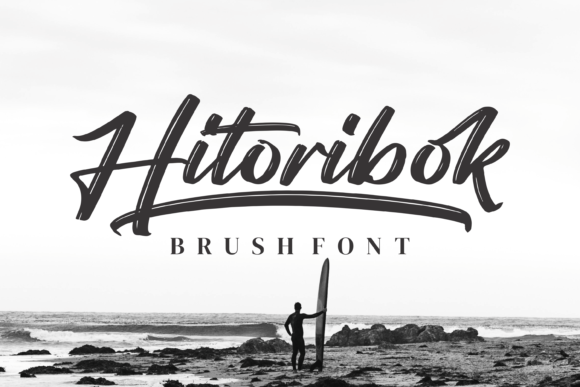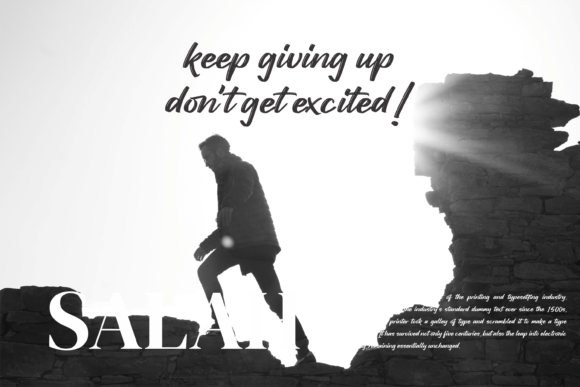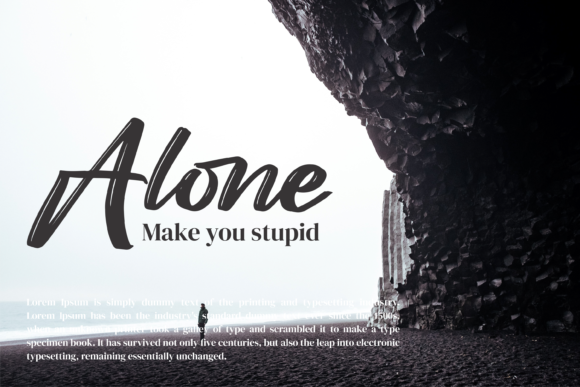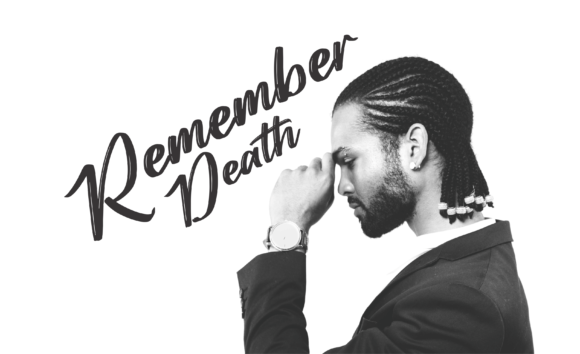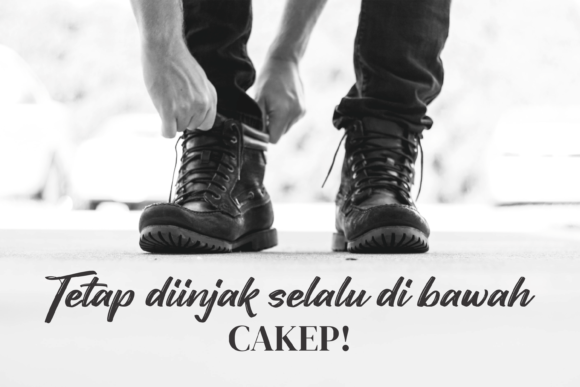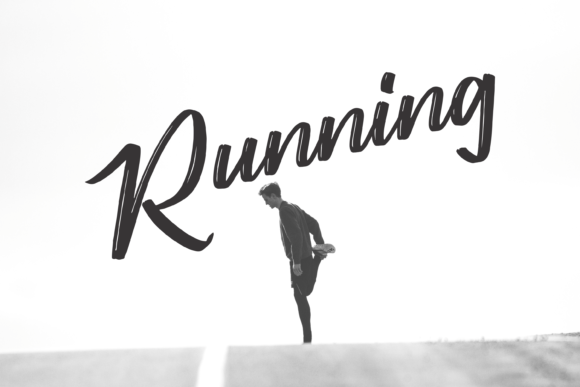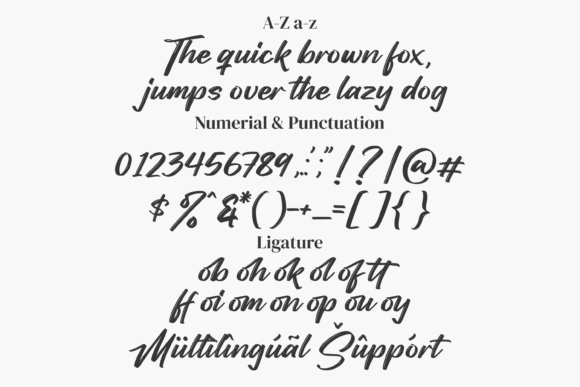
Have you ever been browsing through a fashion magazine and been captivated by the elegant script used in their headlines? You know, the kind that makes you want to grab a cup of coffee, sit back, and appreciate the beauty of the typography? That’s exactly the feeling you can evoke with the Hitoribok Font.
Hitoribok Font is a stunning, vintage-styled script font that’s perfect for fashion branding or editorial designs. Its smooth curves and well-balanced design make it a valuable addition to any designer’s toolkit. Whether you’re working on a high-end fashion campaign or a stylish blog, Hitoribok Font is sure to add a touch of sophistication and elegance to your project.
Hitoribok Font Key Features
- Unique Character Set: Hitoribok Font features a unique character set that includes a wide range of Japanese characters, making it an ideal choice for designers and typographers working on Japanese-language projects.
- Variable Font Technology: Hitoribok Font is a variable font, allowing users to adjust the font’s weight, width, and other characteristics in real-time, providing unparalleled flexibility and creativity.
- High-Quality Glyphs: The font features high-quality glyphs with precise letterforms and subtle texture, ensuring a professional and polished look in any design application.
- Multi-Layer Support: Hitoribok Font supports multi-layering, allowing users to stack multiple font layers to create complex and intricate designs with ease.
Hitoribok Font Review
Hitoribok Font is a beautiful, elegant font that can add a touch of sophistication to any design project. ✨ Its clean lines and subtle curves make it perfect for creating a sense of refinement and luxury. I particularly love how the font looks on the web, it’s crisp and clear, and works well on various devices.
One of the things that I appreciate about Hitoribok Font is its versatility. ✨ It can be used for a wide range of projects, from headlines to body text, and even for creating beautiful quotes and titles. The font also comes in various weights and styles, which makes it easy to customize and adapt to different design needs.
- ⚠️ Limited language support, which may be a concern for designers who work with clients from different regions.
- ⚠️ The font may not be suitable for very long blocks of text, as it can become difficult to read.
Overall, I think Hitoribok Font is a great addition to any designer’s toolkit. It’s a beautiful, elegant font that can add a touch of sophistication to any design project. While it may have some limitations, I believe the benefits far outweigh the drawbacks.
Hitoribok font is best used for creative and artistic projects, such as:
– Titles and headings
– Quotes and captions
– Infographics and visualizations
– Creative writing and poetry
Remember to experiment with different font sizes, styles, and colors to get the most out of Hitoribok font.